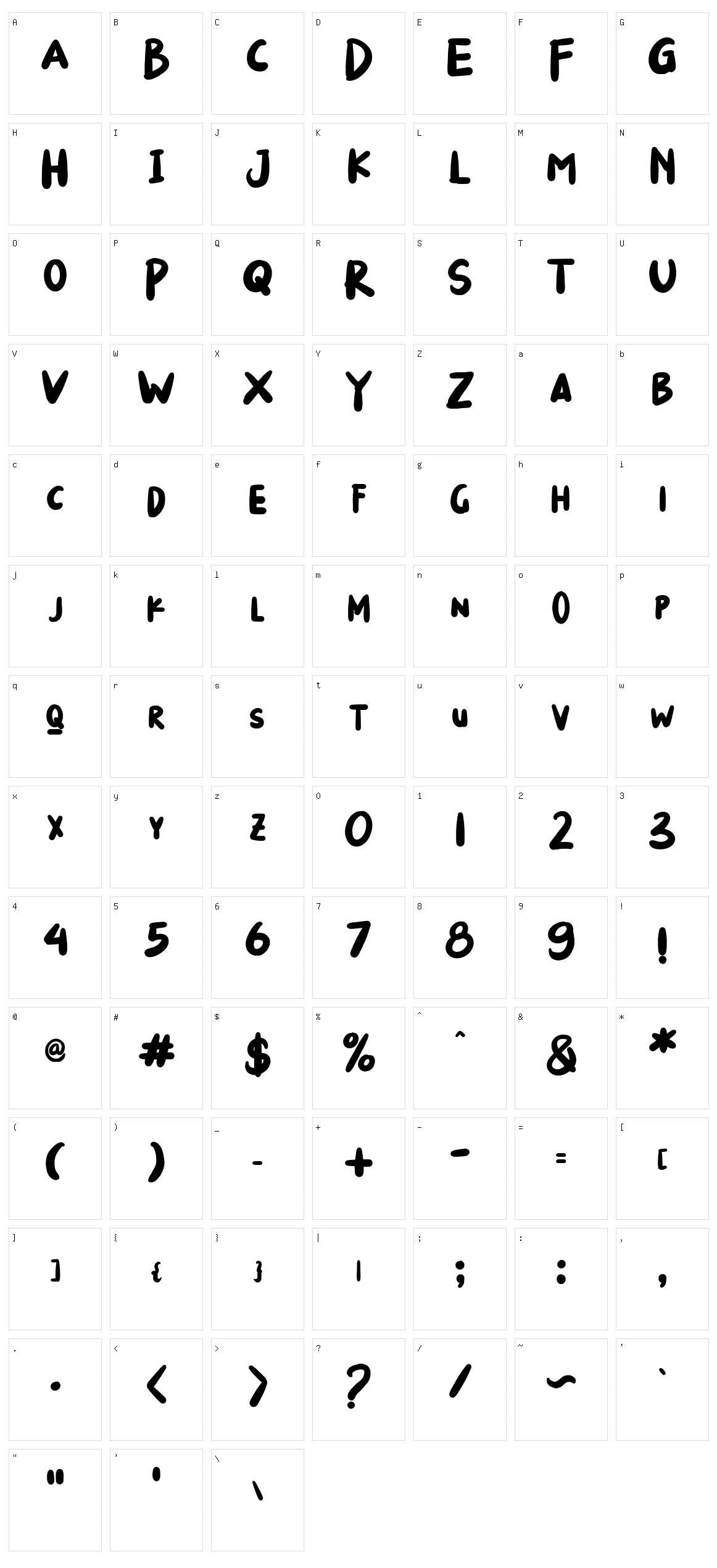
The free font I Luv Mommy is carefully designed by SSI.Scraps, showcasing a thoughtful balance of creativity and usability and falls under the Script font style. When you download the ZIP file, it contains only 51.2 KB of font files, making it lightweight and quick to download. Please review the license details below to understand permitted usage and distribution rights. If license information is not available, we recommend using this font for personal projects only or contacting the author directly for commercial usage permissions.